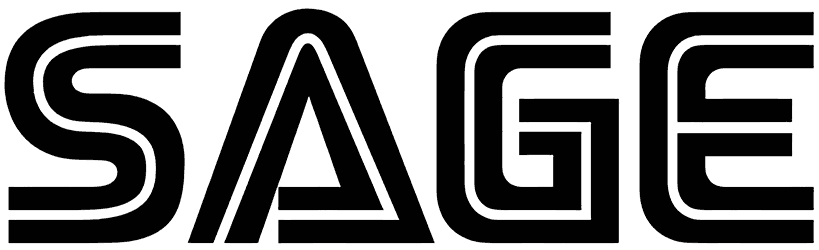
Maze Line Font
If you need a unique double-line font with digital characters for your logo design or headline, Maze Line is perfect for you! This font comes with big characters and it gives off a futuristic and cool sense to your reader, although they might not be readable.
This font can be used for technology text titles, movie headlines, channel banners, or signatures. All the alphabetical characters are capitalized, the punctuational set is incomplete and lacks a numeric set.